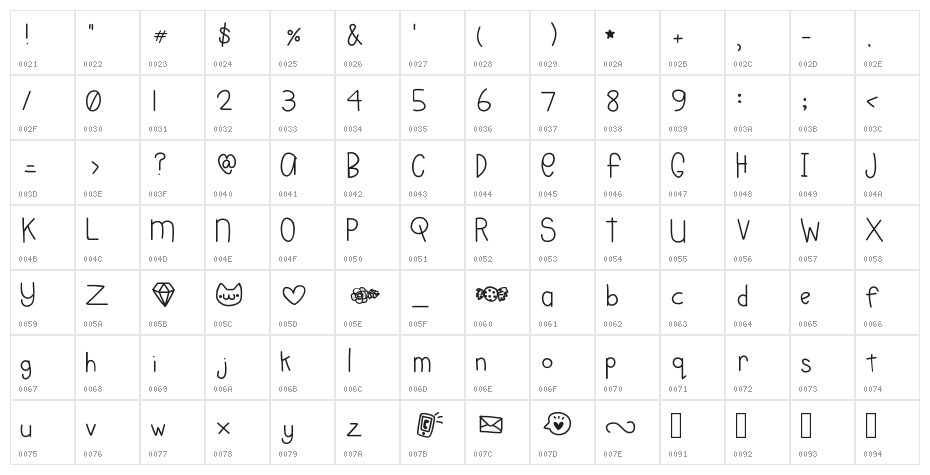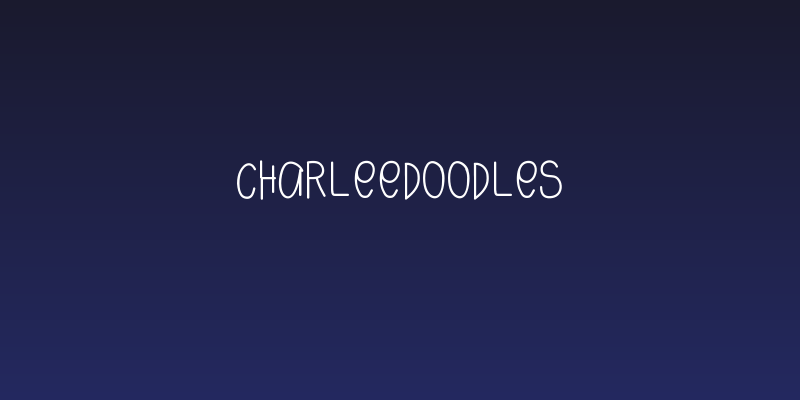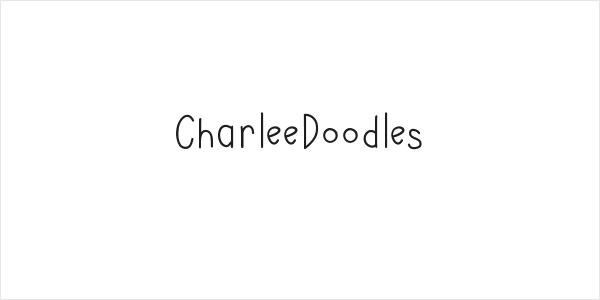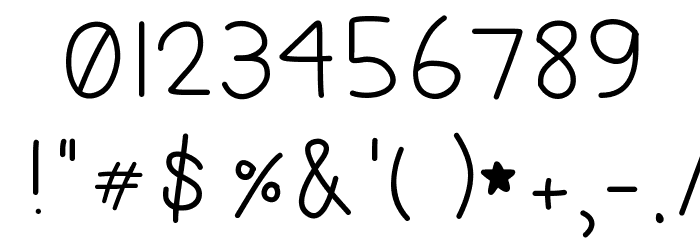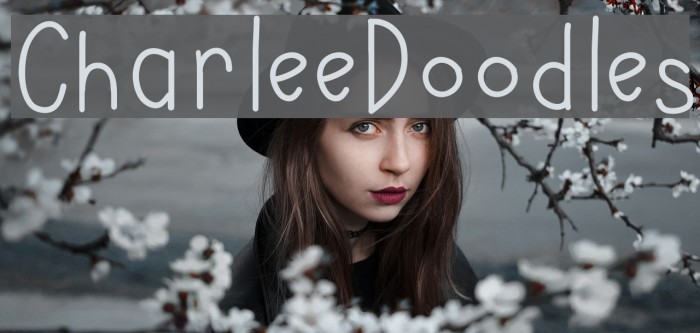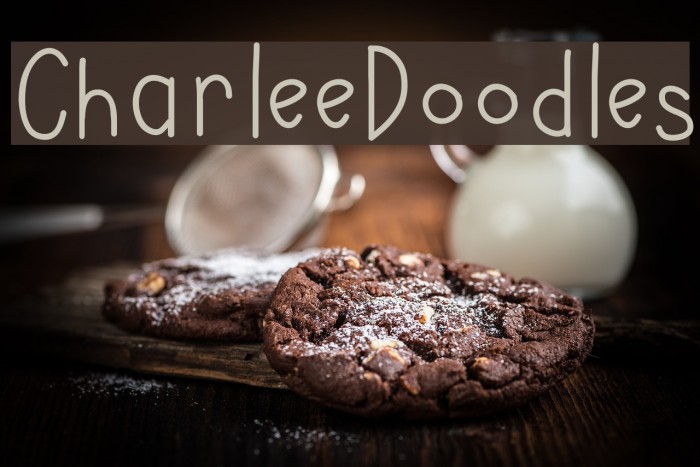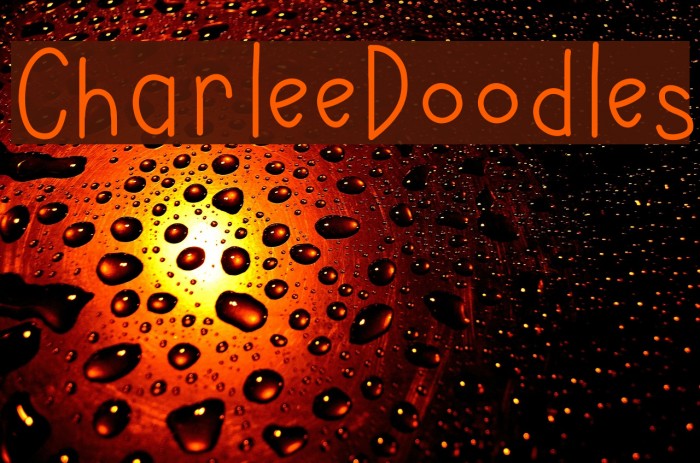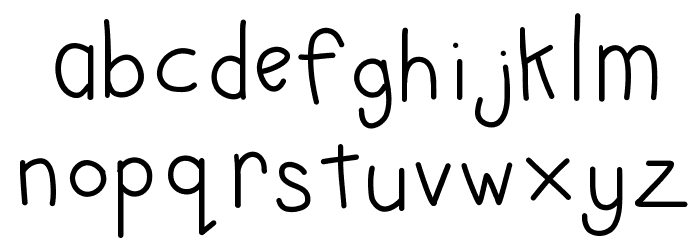
CharleeDoodles Font
CharleeDoodles Description
This playful and whimsical font features a handwritten style with a casual, friendly appearance. The characters are slightly irregular, adding a personal touch that mimics the look of doodles or casual handwriting. The uppercase and lowercase letters maintain a consistent flow, with rounded edges and a slight tilt that enhances its informal charm. Numbers and special characters are crafted with the same playful aesthetic, making them suitable for creative projects. The font's overall appearance is light-hearted and approachable, perfect for designs that aim to convey warmth and creativity.
CHARLEEDOODLES UPPERCASE
CHARLEEDOODLES LOWERCASE
CHARLEEDOODLES OTHER CHARS
| Proposed Projects | Ideal for children's books, greeting cards, playful branding, and creative social media graphics. |